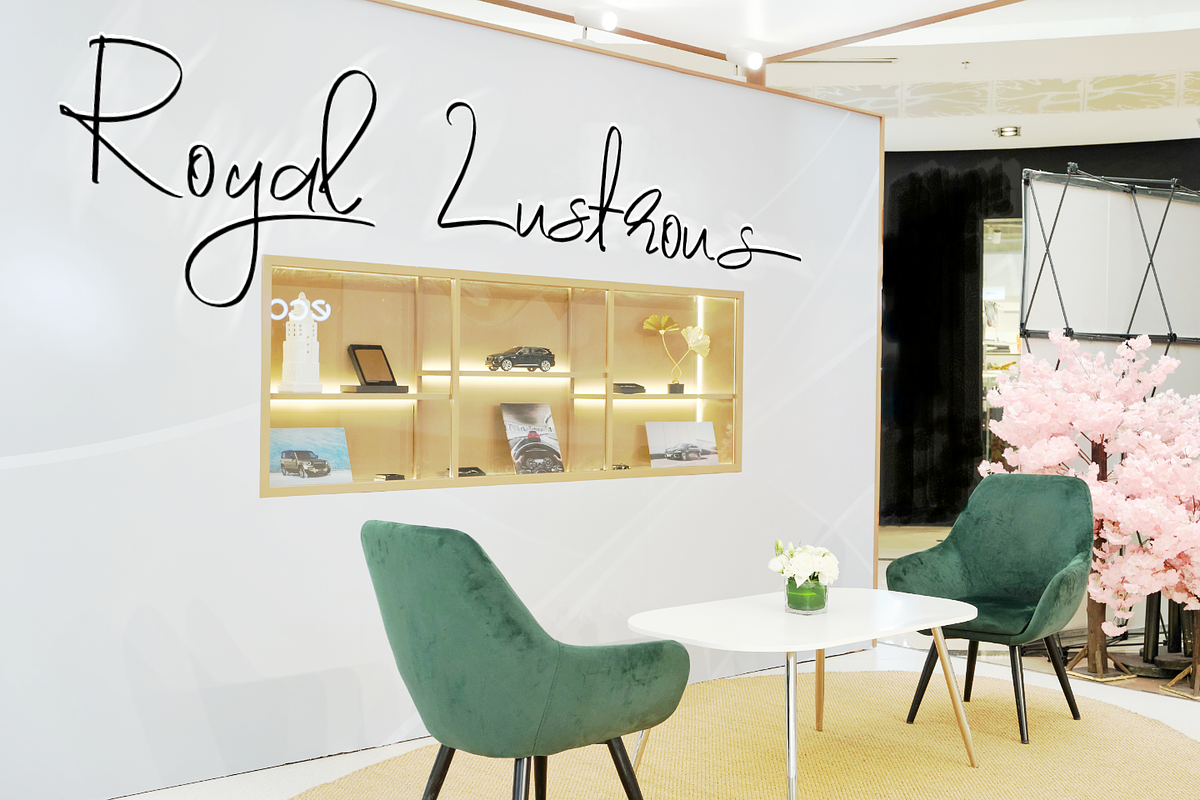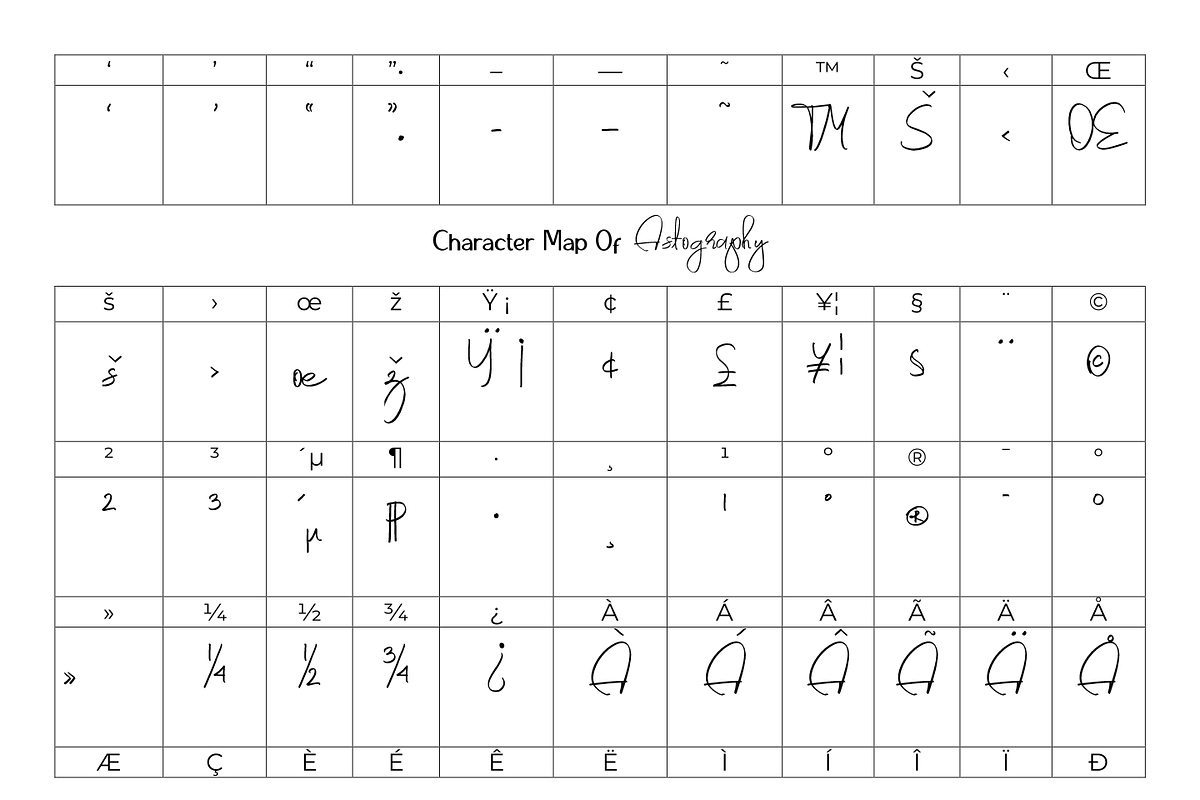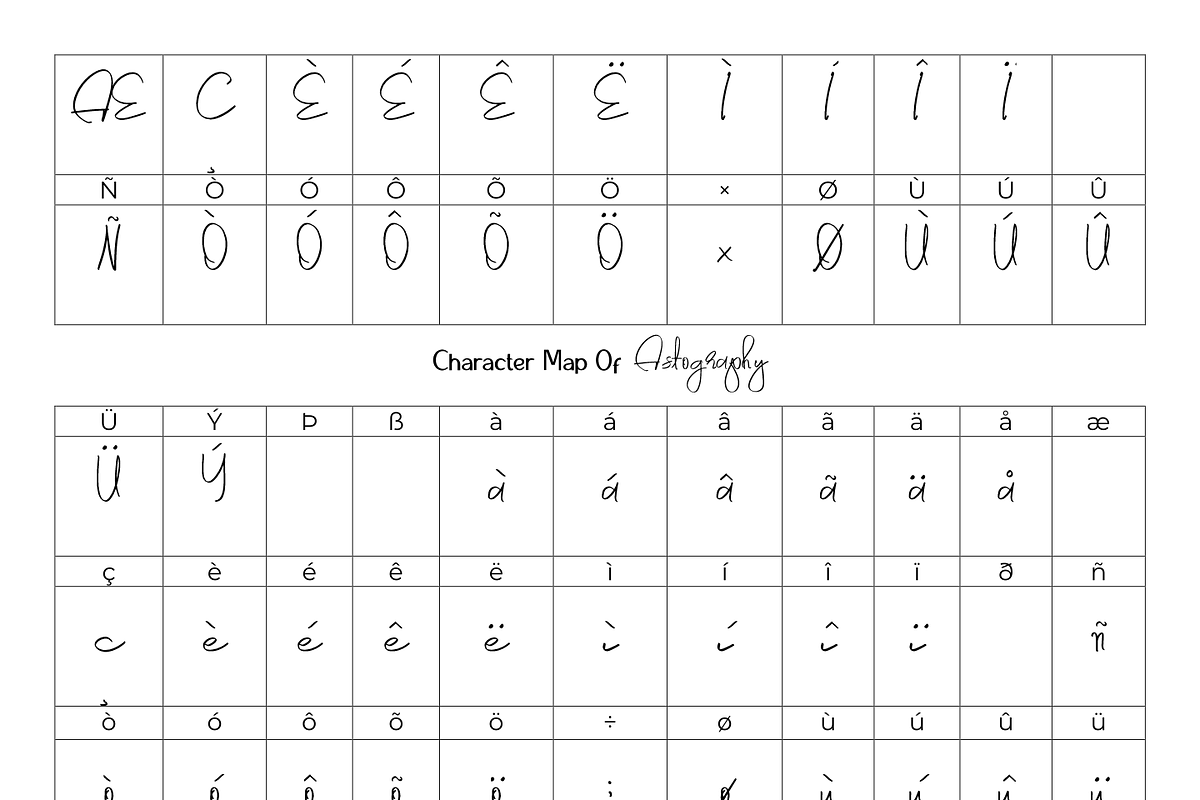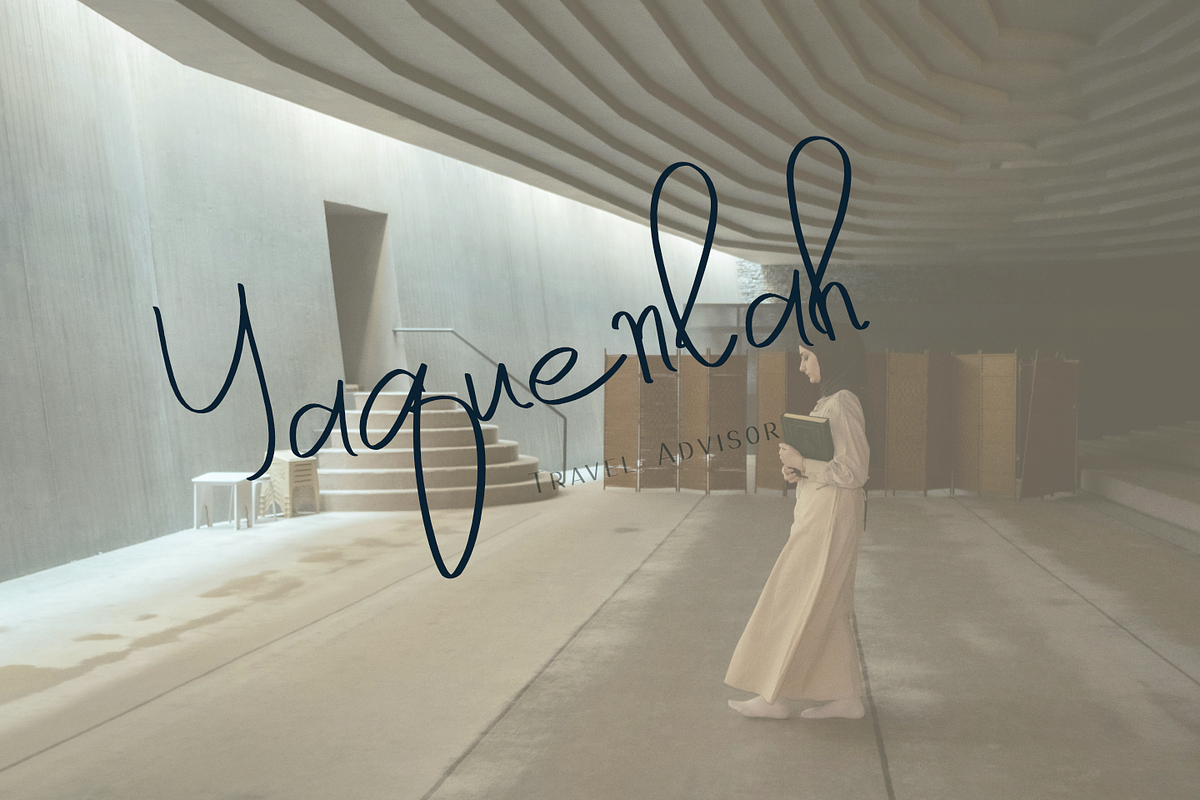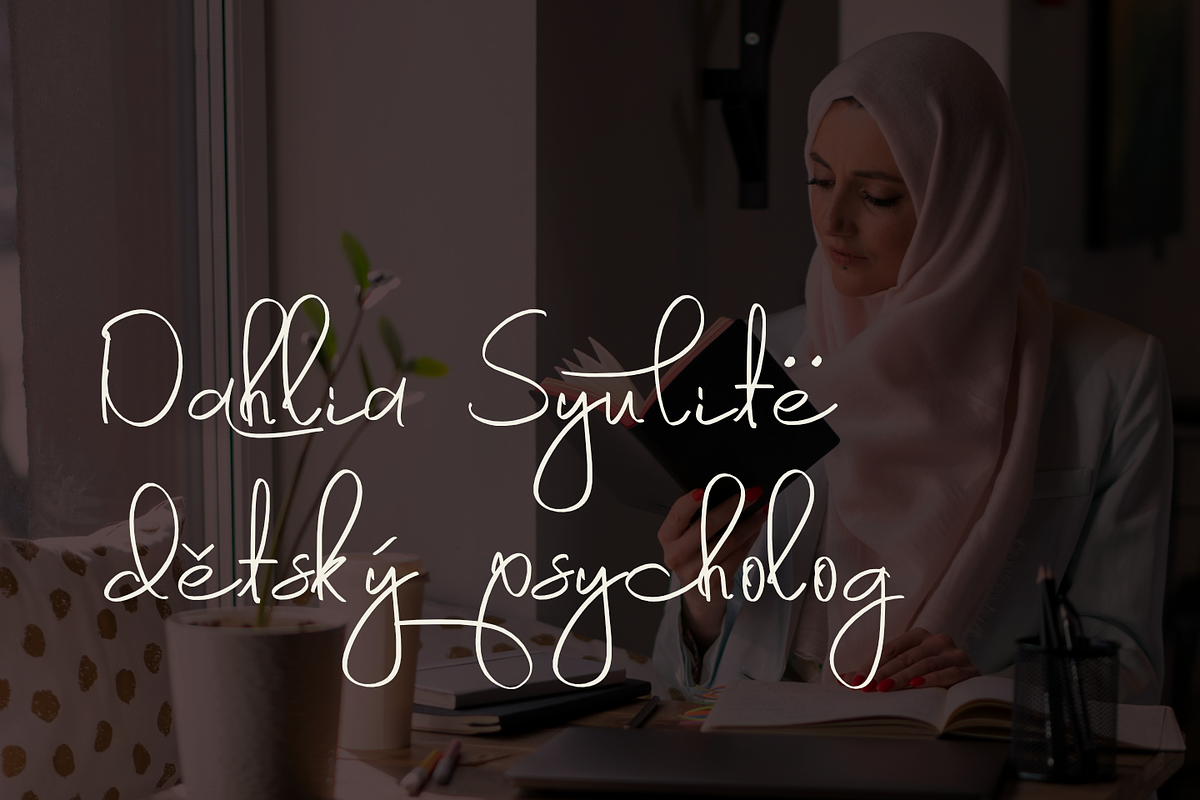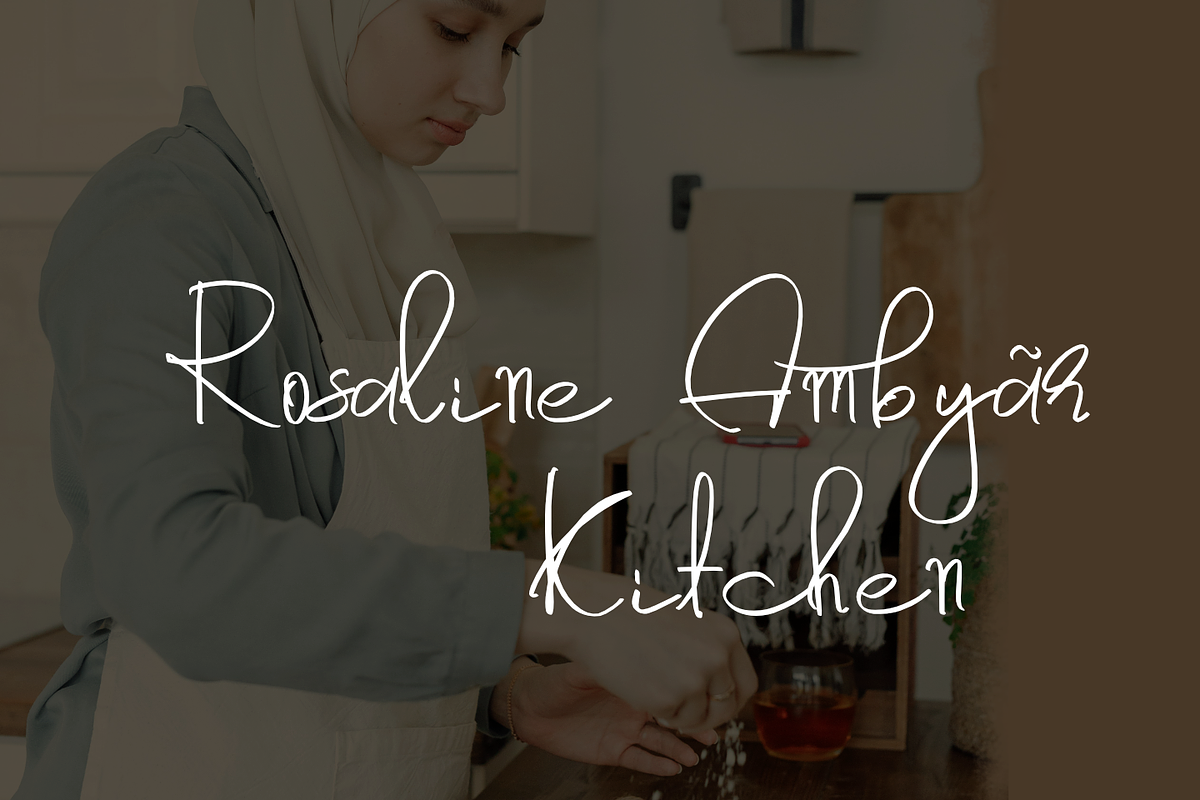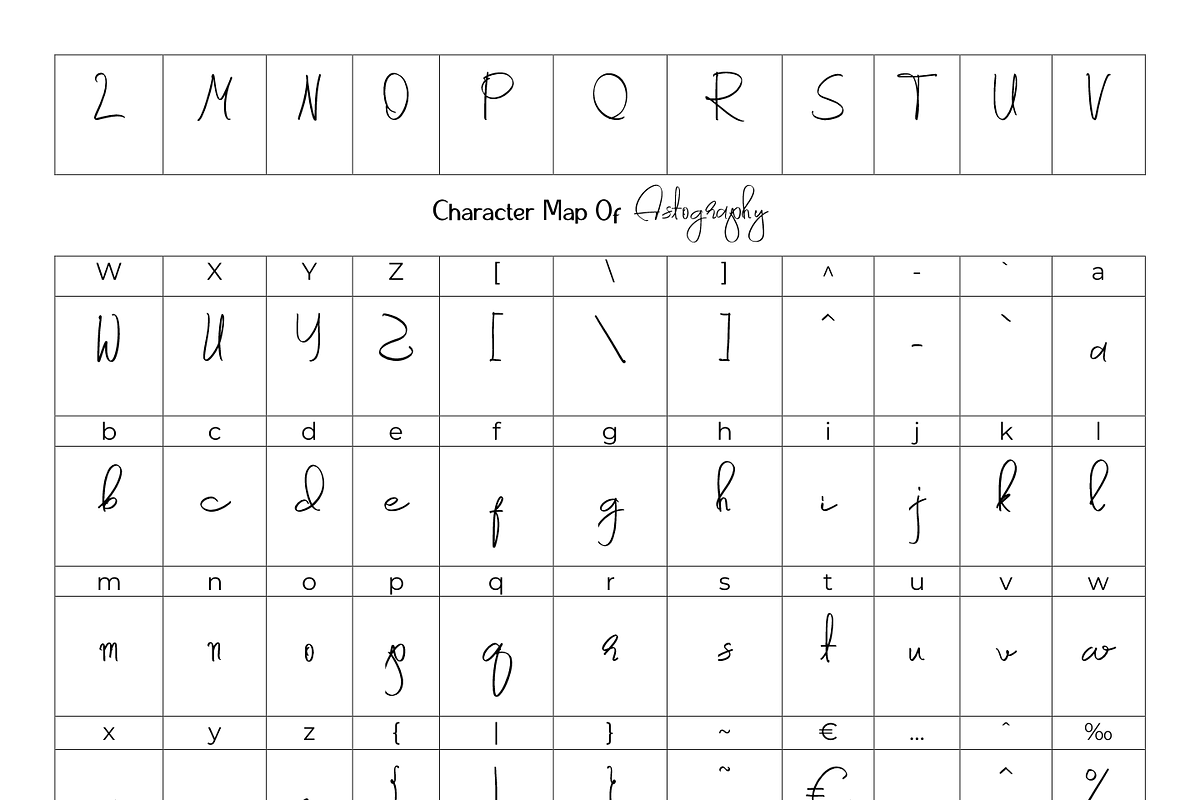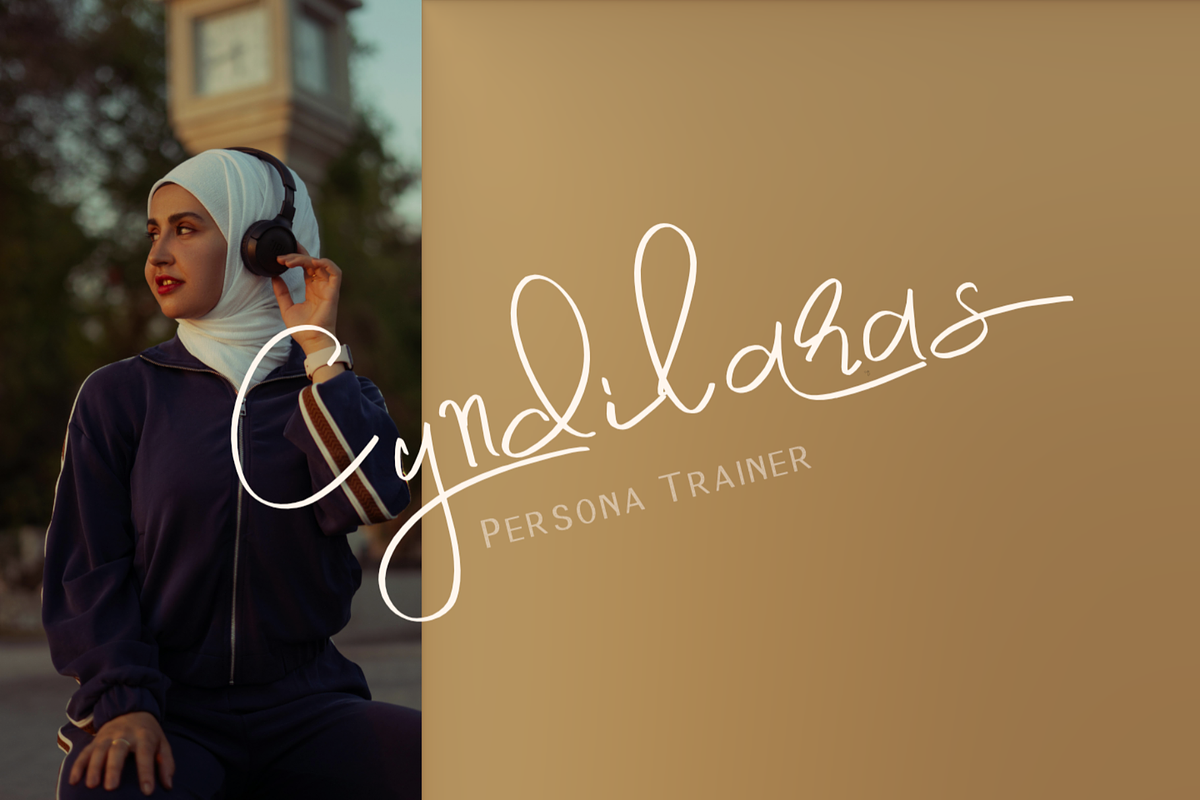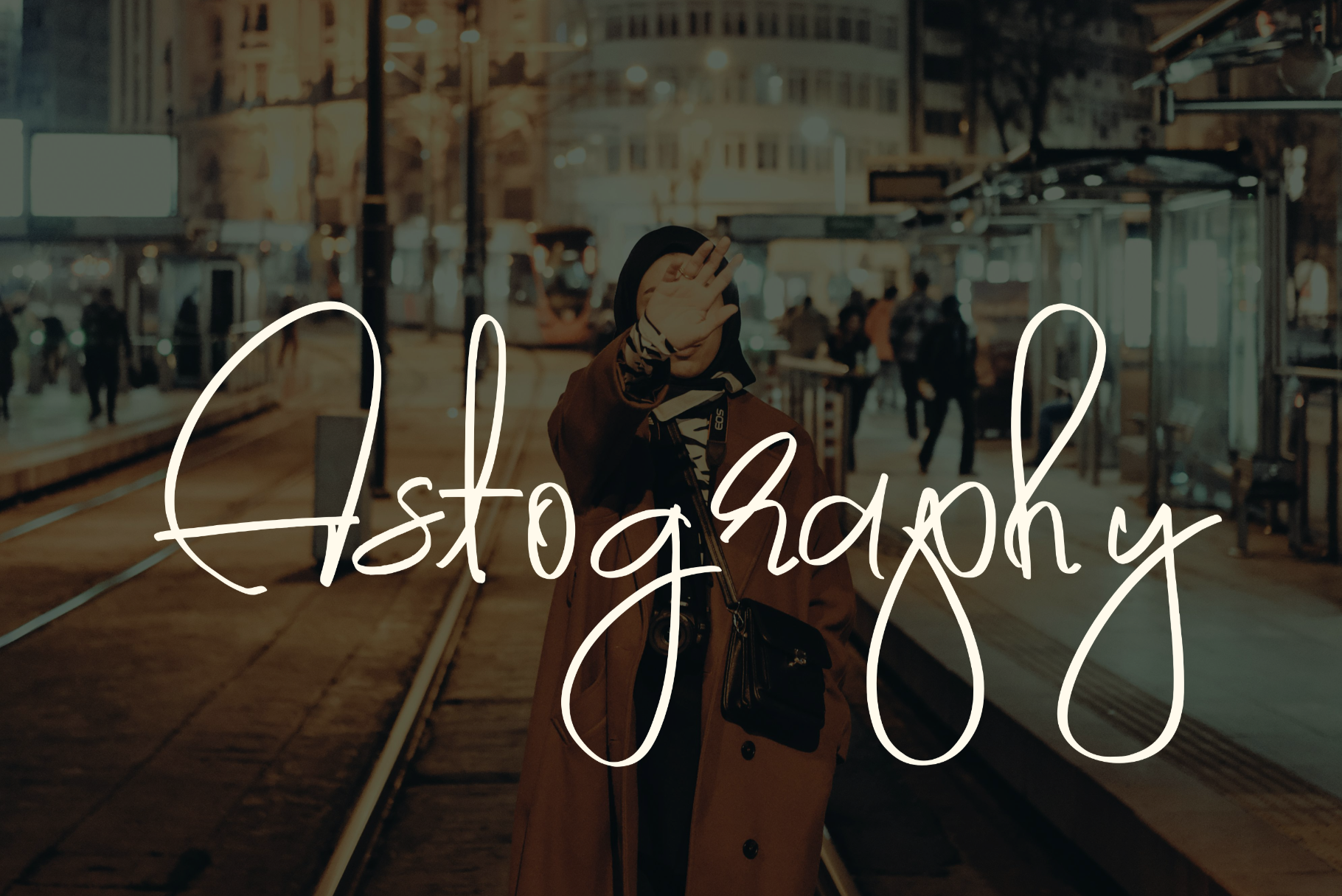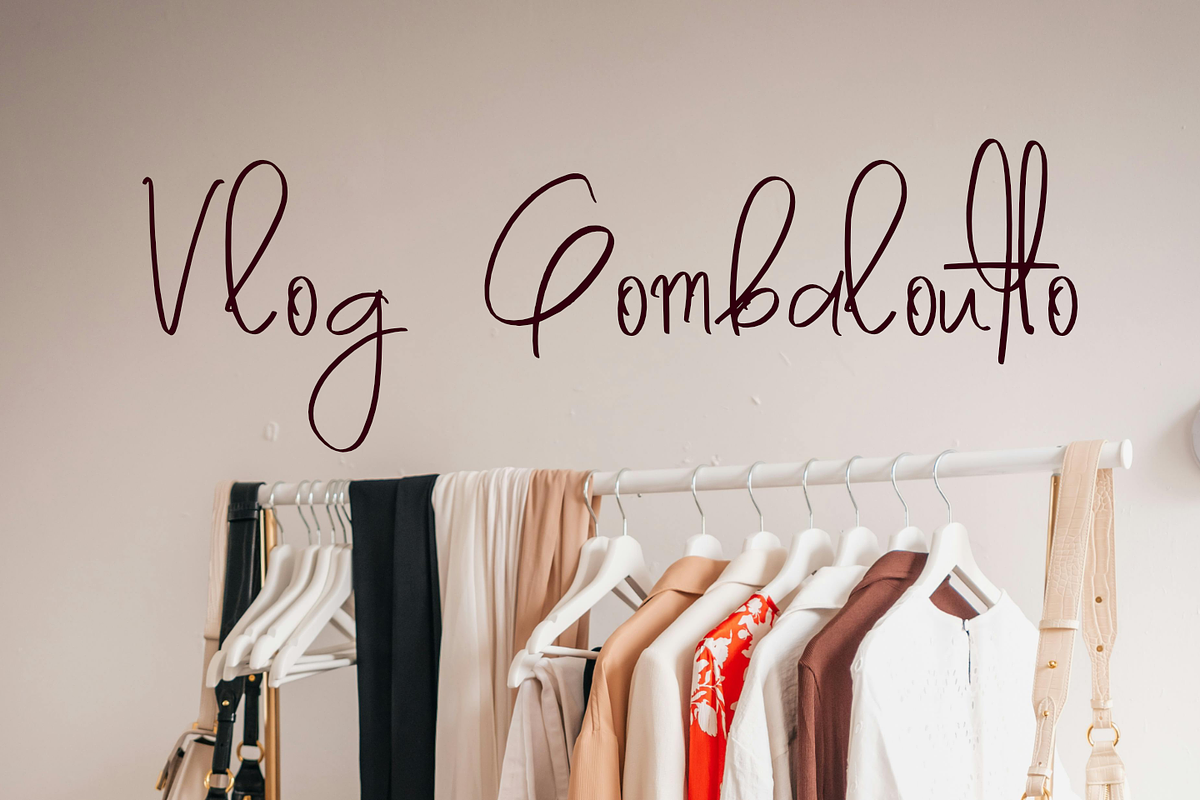
Astography signature font
Handwritten upright fonts have become a popular choice in the realms of design, branding, and personal communication. These fonts combine the charm of handwritten text with the neatness and readability of traditional typefaces. They are characterized by their upright posture, resembling natural handwriting, but are often more uniform and polished, making them versatile for various applications. One significant advantage of handwritten upright fonts is their ability to convey personality and warmth. Unlike standard serif or sans-serif fonts, which may appear rigid or impersonal, handwritten fonts evoke feelings of familiarity and authenticity. This quality is particularly beneficial in branding, where companies aim to create a connection with their audience. Businesses can communicate a more relatable and approachable image using a handwritten upright font.